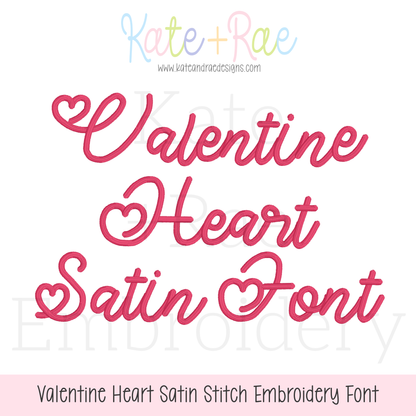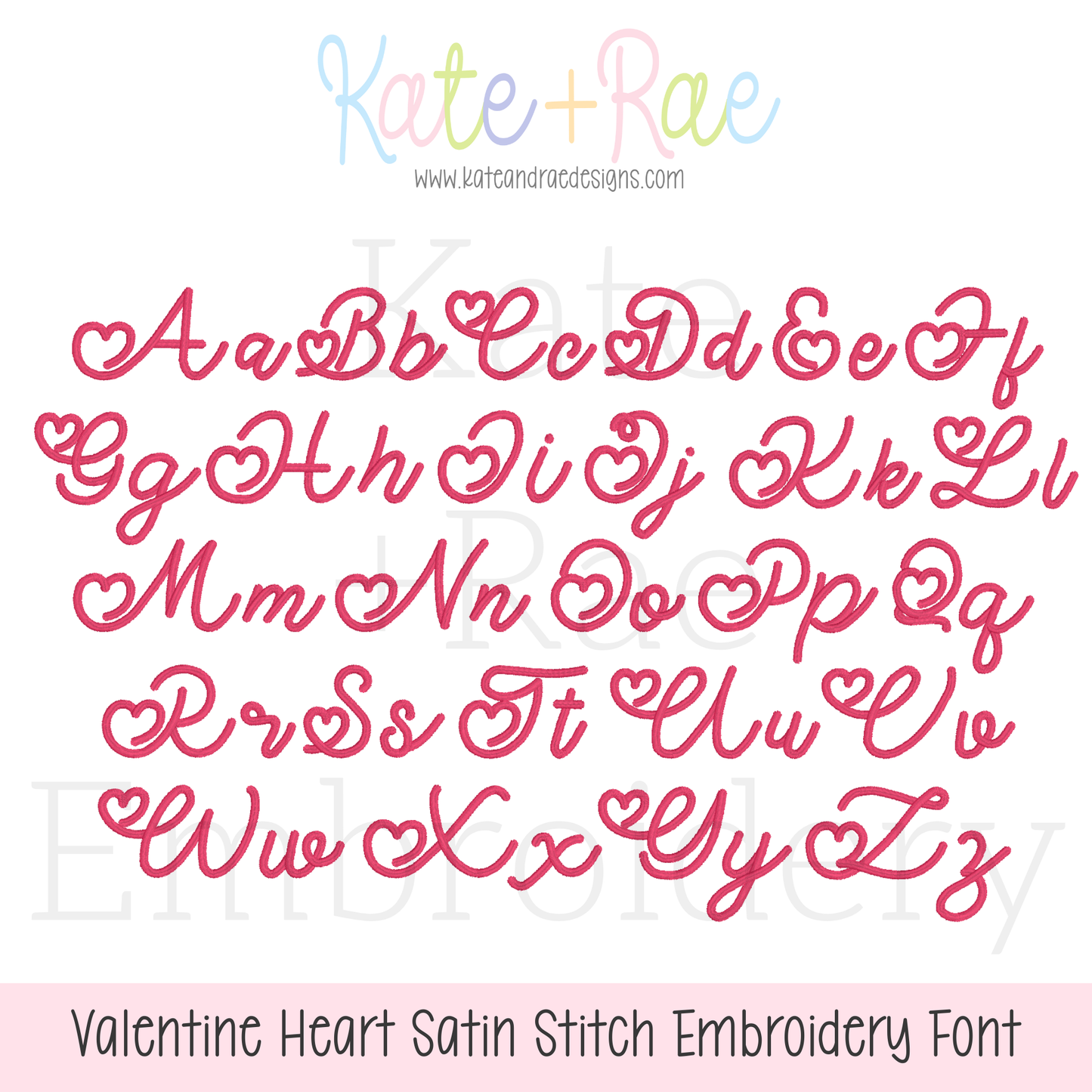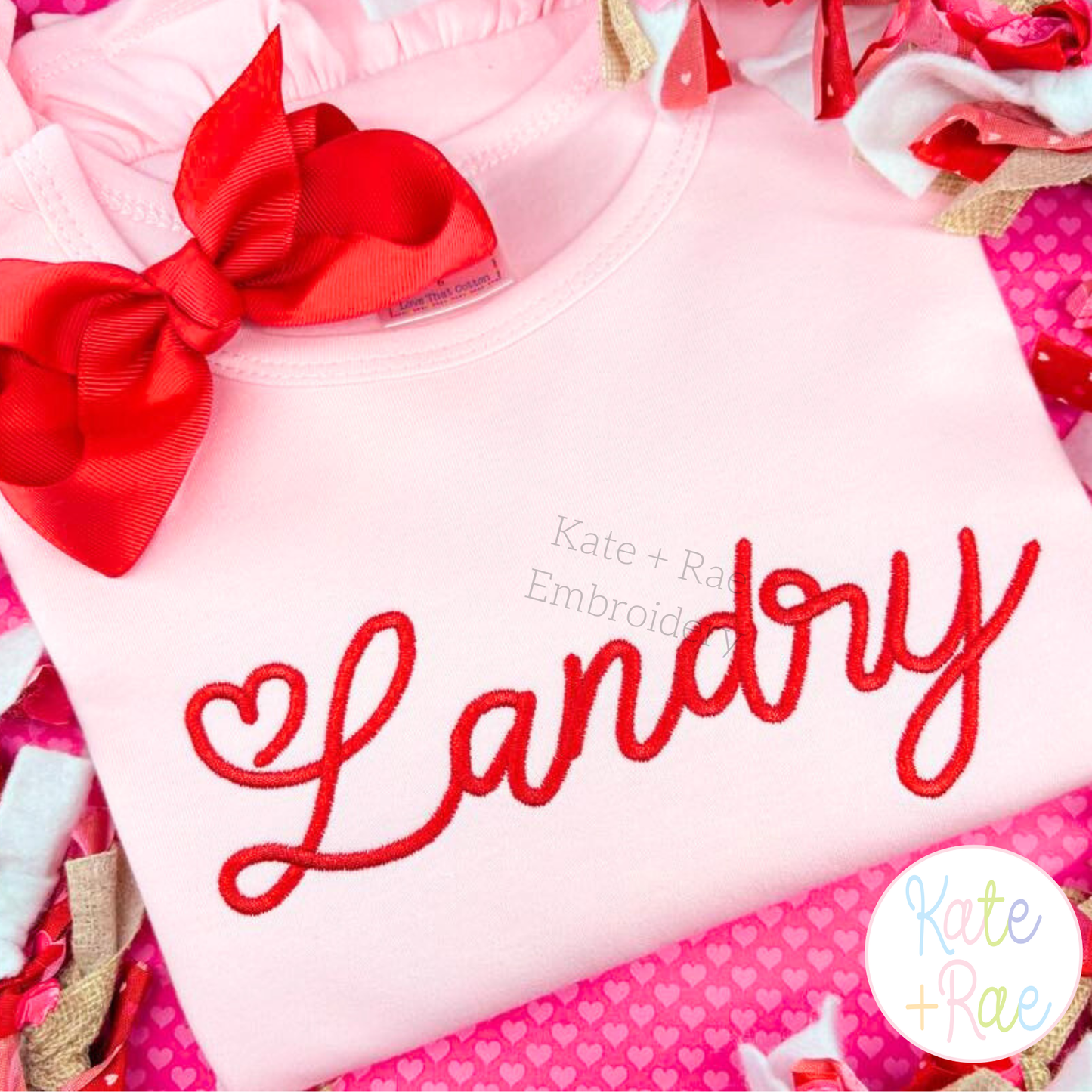
Valentine Heart Satin Stitch Embroidery Font
Spell out sweet messages with the Valentine Heart satin stitch font! It's perfect for Valentine's names, class party shirts, and sweet gifts.